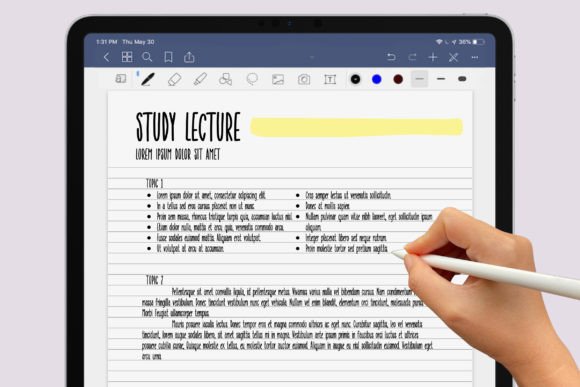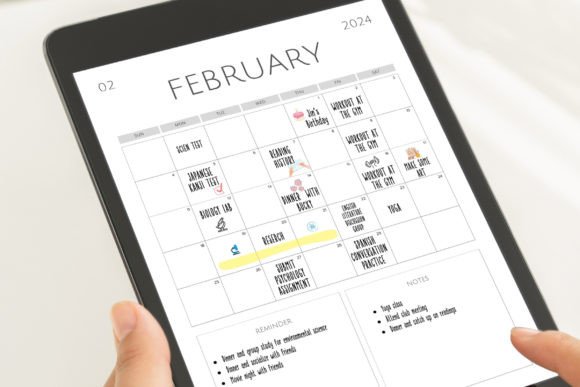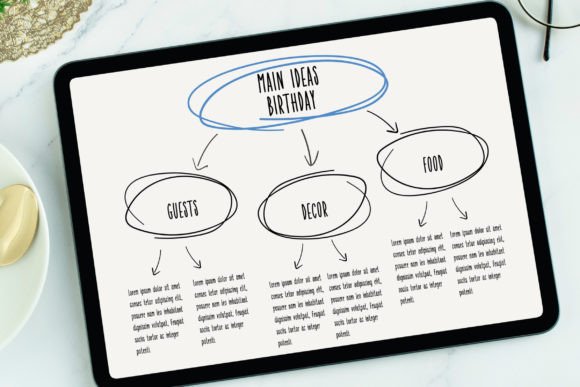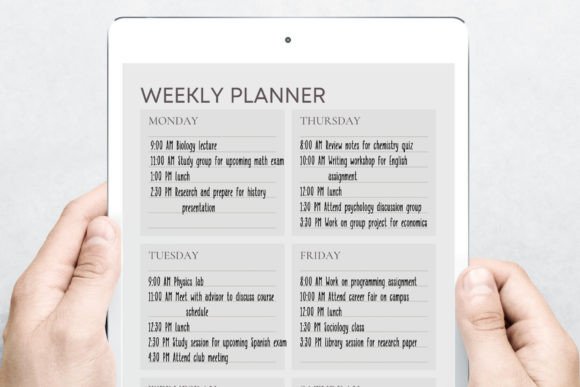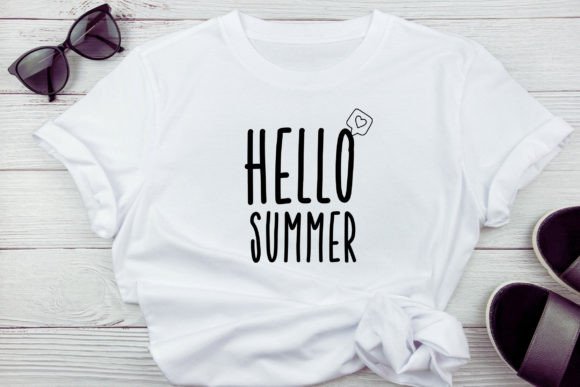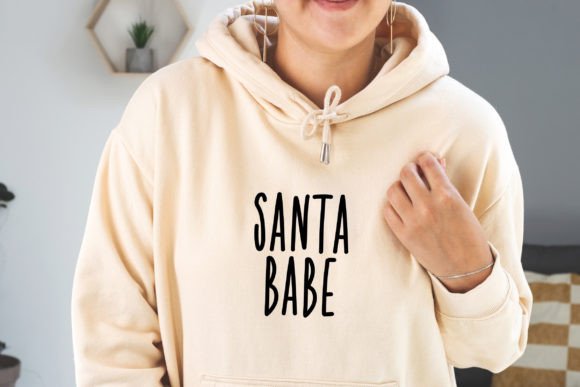
Introducing Happy Monday: The Ultimate Font for a Productive Week
Are you tired of using the same old fonts for your notes, planners, and journals? Do you want to add a touch of elegance and sophistication to your daily routine? Look no further than the Happy Monday font, a unique handwritten font designed to kickstart your week with super-narrow elegance.
The Benefits of Happy Monday Font
Happy Monday is more than just a font – it’s a game-changer for students, teachers, and anyone looking to boost their productivity and creativity. With its exceptionally narrow width, this font allows you to record a substantial amount of content while maintaining a well-organized appearance. Whether you’re taking notes, creating digital planners, or designing greeting cards, Happy Monday is the perfect choice.
Designed for Efficiency and Style
One of the standout features of Happy Monday is its super-narrow design. This means you can fit more content on a single page, making it ideal for note-taking, journaling, and planning. The font’s elegant and streamlined style ensures that your work looks visually pleasing, whether you’re using it for personal or professional projects.
Perfect for Students and Teachers
Happy Monday is specifically designed with students and teachers in mind. Whether you’re a student looking to take more efficient notes or a teacher creating educational materials, this font is perfect for you. It’s also great for creating digital planners, traditional planners, journals, and educational notes.
Versatile and Multifaceted
The Happy Monday font is incredibly versatile and can be used for a wide range of applications. Some of the ways you can use this font include:
- Note-taking: Take notes in style with Happy Monday’s elegant and narrow design.
- Digital planners: Create digital planners that are both functional and visually pleasing.
- Traditional planners: Add a touch of sophistication to your traditional planners.
- Journals: Write in your journal with a font that’s both stylish and easy to read.
- Educational notes: Create educational notes that are engaging and easy to understand.
- Goodnotes: Use Happy Monday in your Goodnotes to add a touch of elegance.
- Greeting cards: Create beautiful greeting cards with Happy Monday’s stylish design.
- Quotes: Add a touch of sophistication to your quotes with Happy Monday.
- Handwritten notes: Write handwritten notes that are both personal and stylish.
- Branding: Use Happy Monday to create a unique and recognizable brand identity.
Why Choose Happy Monday?
So why choose Happy Monday over other fonts? Here are just a few reasons:
- Unique design: Happy Monday’s super-narrow design sets it apart from other fonts.
- Elegant style: The font’s elegant style ensures that your work looks sophisticated and visually pleasing.
- Versatile: Happy Monday can be used for a wide range of applications.
- Easy to read: The font’s narrow design makes it easy to read, even in small sizes.
Get Ready to Boost Your Productivity